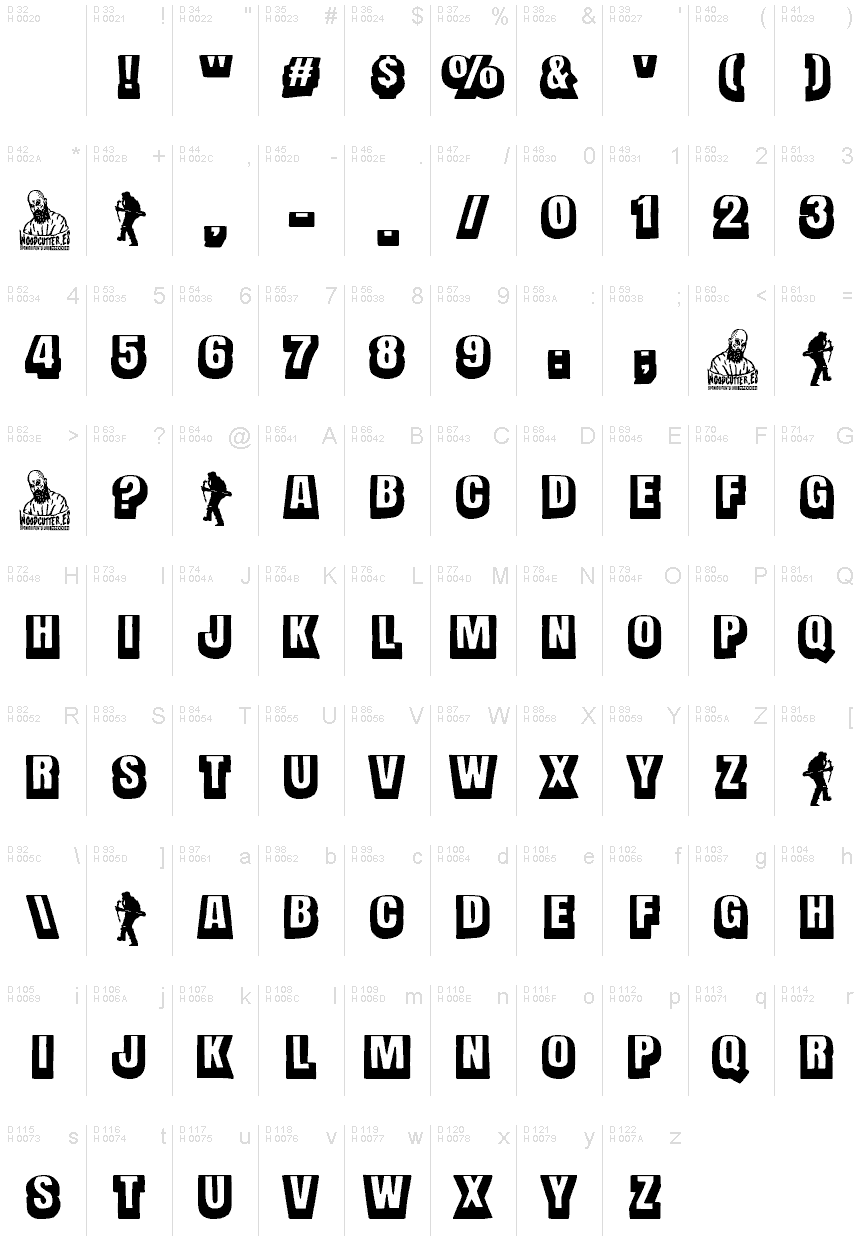
dimension 1974
Dimension 1974 font by Woodcutter is a bold, condensed display typeface that makes an impactful visual statement. Vintage-inspired and robust, this free display font features sharp corners and stylish elements suitable for projects that require authenticity and elegance. Dimension 1974 creates a clean consistent look in any project as it lacks contrast between the strokes' thickness.
Apply this free vintage-inspired font in retro branding designs, movie posters, flyers, t-shirts typography, and marketing materials. Typography posters along with other publications (printed or digital) will also look cool using this font for headings and short text paragraphs. Other possible uses could be found in artists such as book covers, magazines layouts etc.